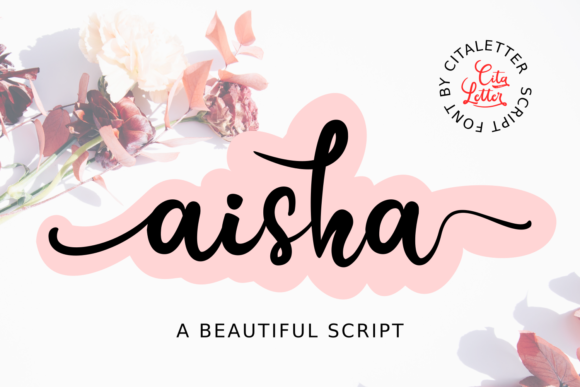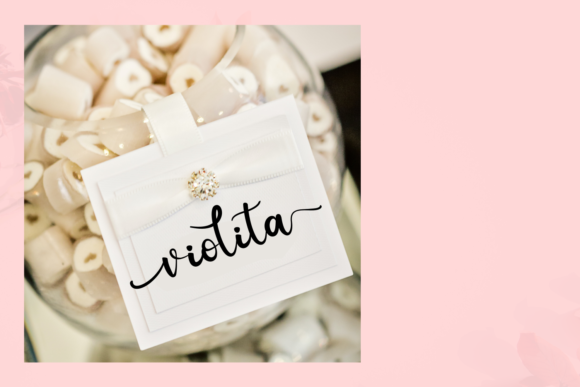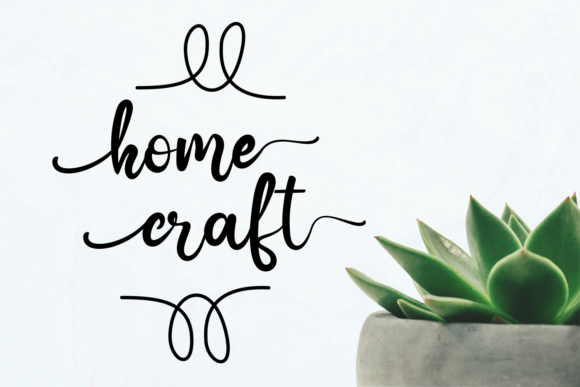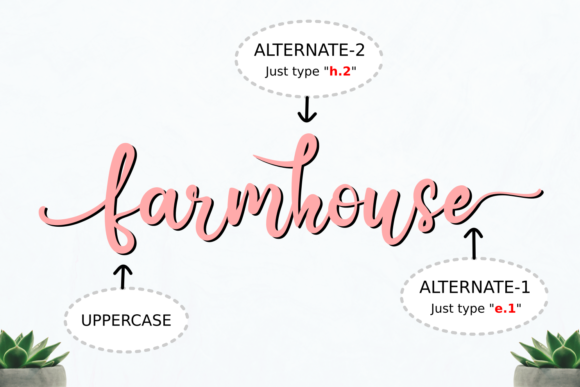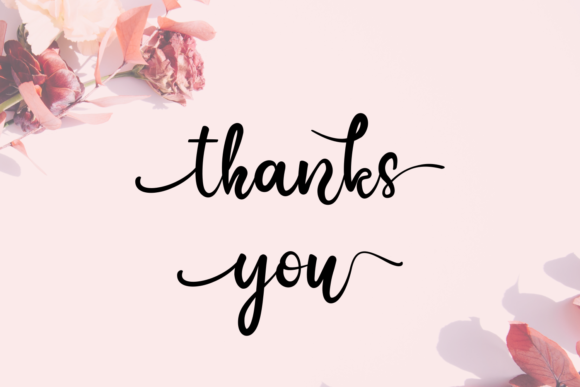
Aisha Script Font
About Aisha Script Font
Aisha Script is a sweet, whimsical and cursive script font. Featuring characters that dance along the baseline, this font will add a luxury spark to any design project that you wish to create!